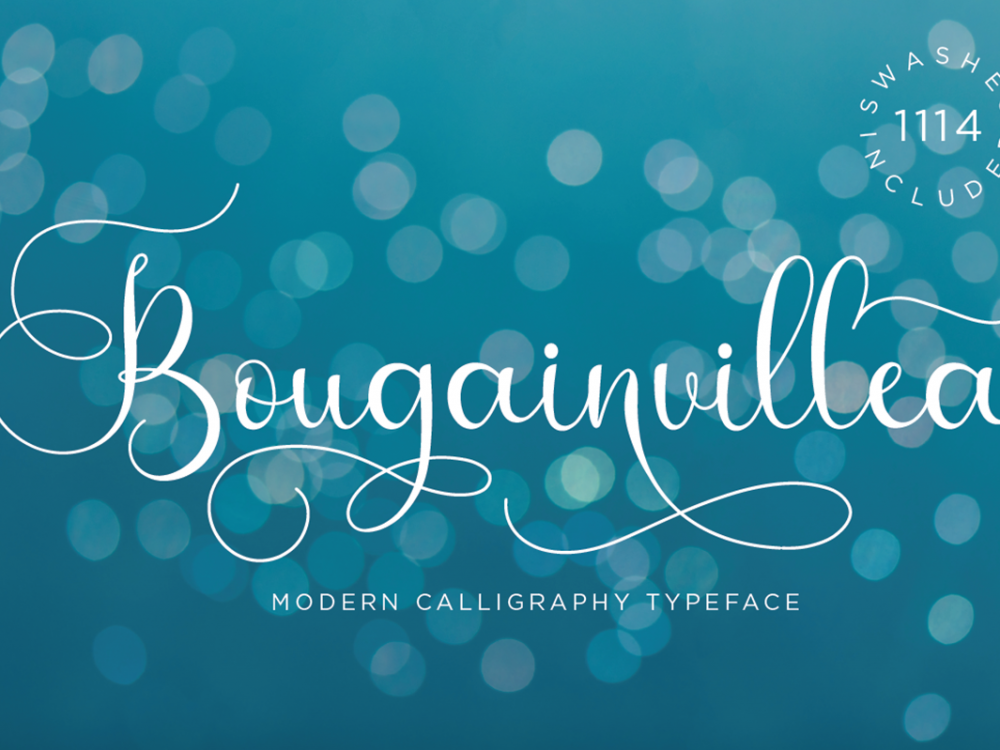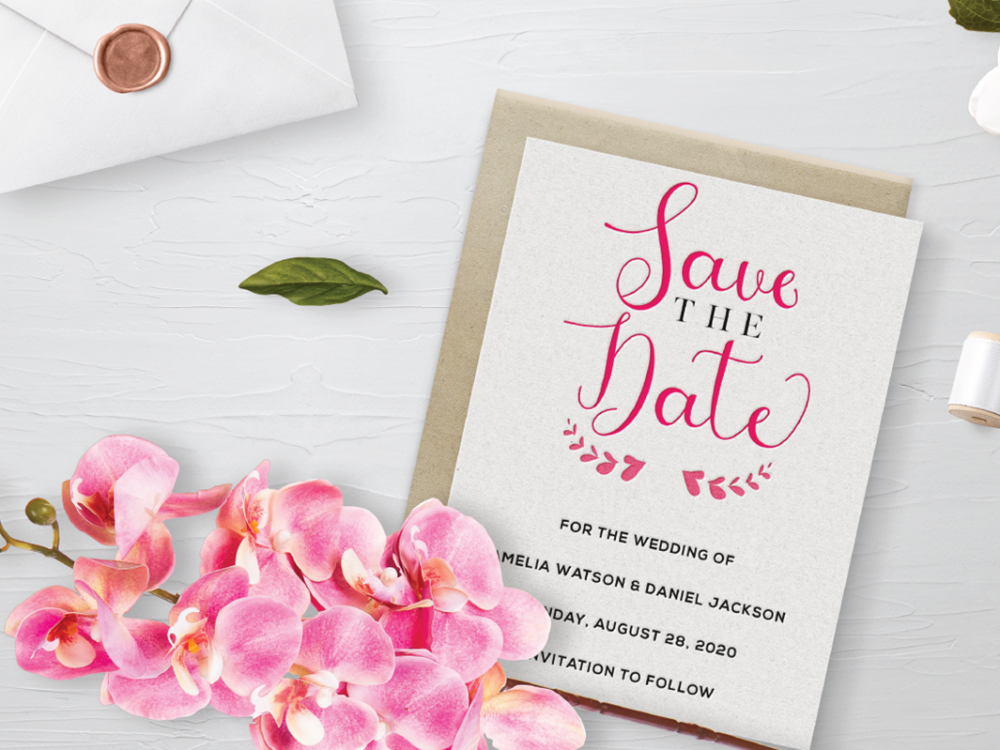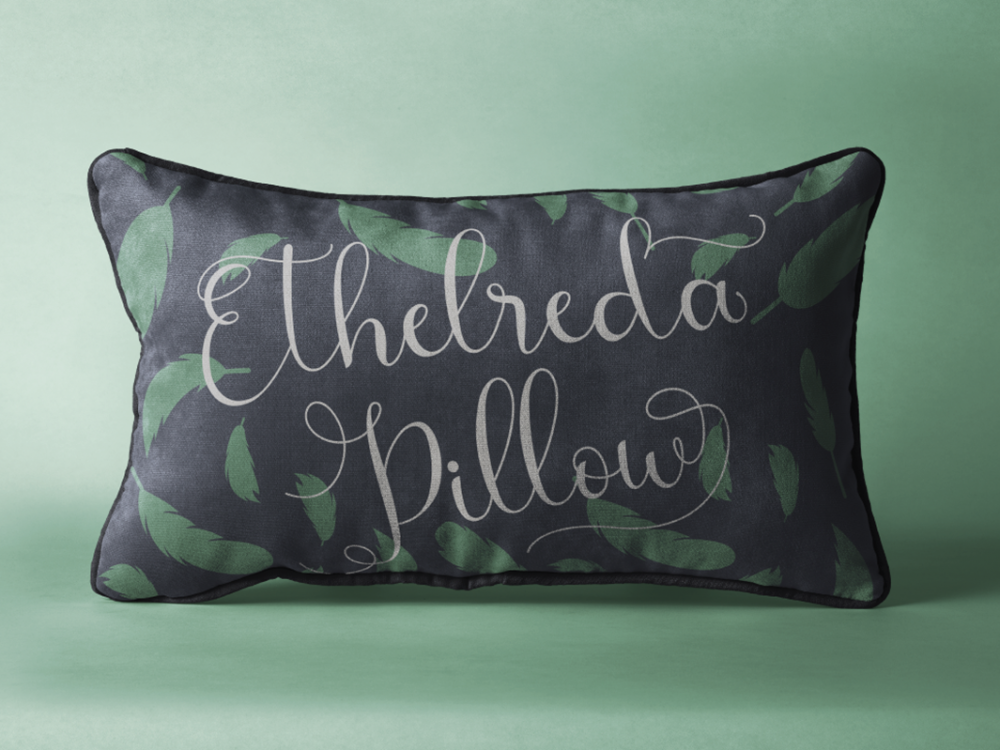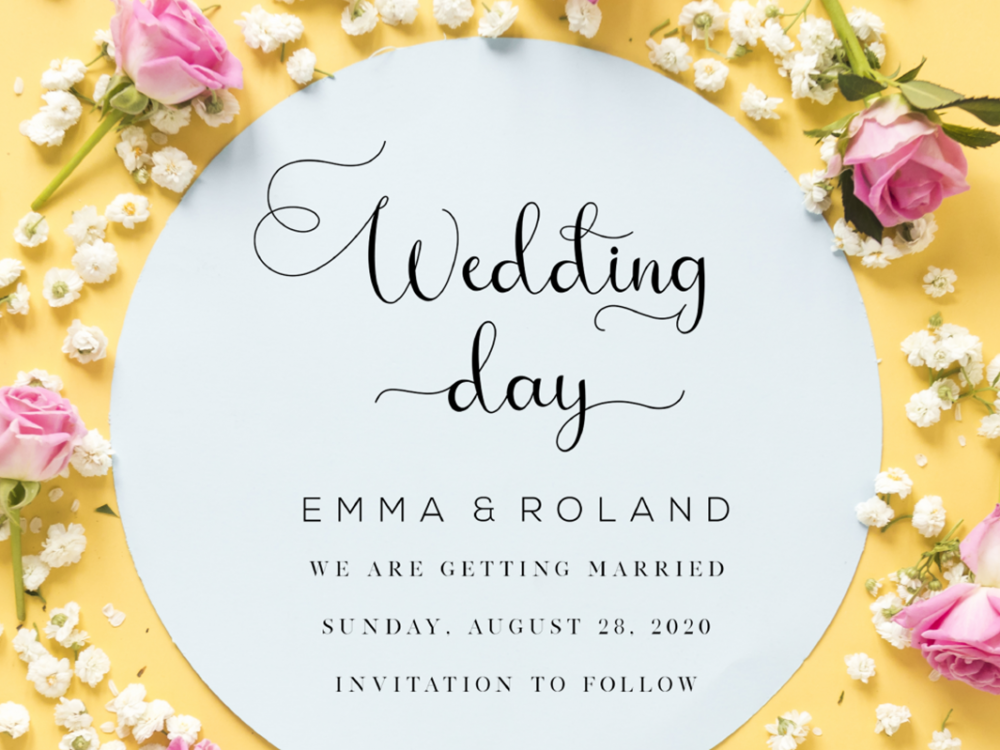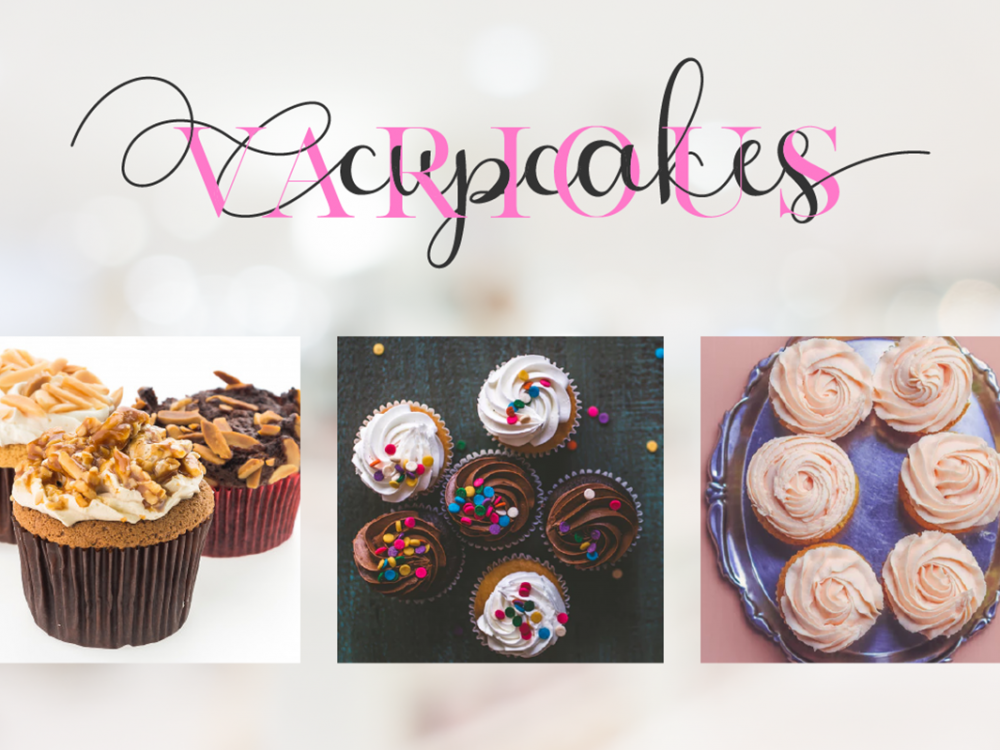
Bougainvillea Free Font
Bougainvillea Free Font is an interesting calligraphic font with an elegant style. This font offers your personal touch to your latest art project with an elegant, classy, ​​and modern look. It is very well suited for creating various projects that require a script font. You can use this font to create memorable posters, wedding invitations, greeting cards, branding, flyers, t-shirt and pillow prints, and more. Improve the quality and increase the popularity of your design projects using this font. If you like it don’t forget to check out the full version.